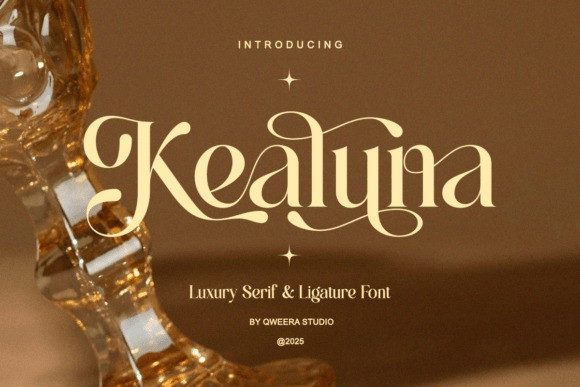
Kealuna Font
Designer: Qweera Studio
Kealuna Font a stunning serif and ligature typeface that redefines modern glamour.
This Kealuna typeface is a masterclass in elegant curves, featuring intricate ligatures that weave characters together into a seamless visual tapestry. The Kealyna font is perfect for high-end boutique branding, organic skincare labels, and sophisticated lifestyle content.
By using the Kealuna typeface, you give your brand a voice that is both trendy and deeply rooted in classical beauty, ensuring a “luxury” feel that resonates with a discerning audience.
I LOVE fonts with motion and this font fairly dances on the page!